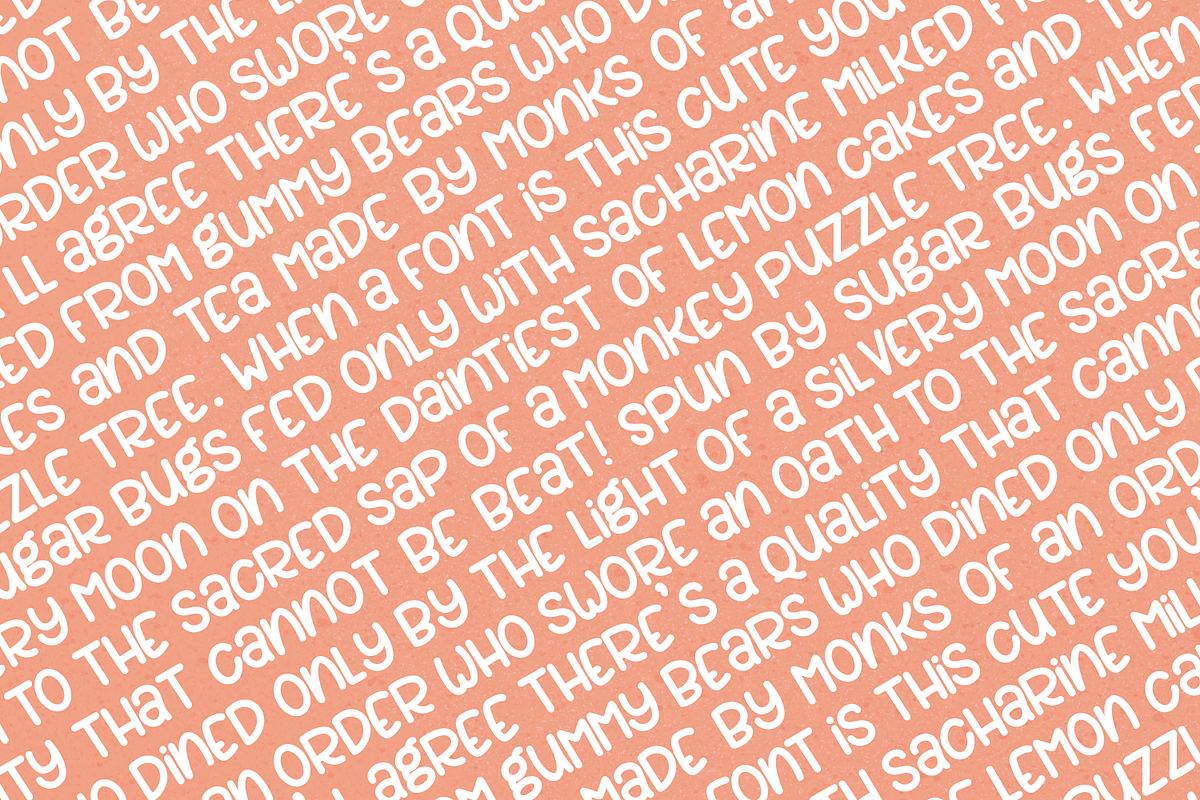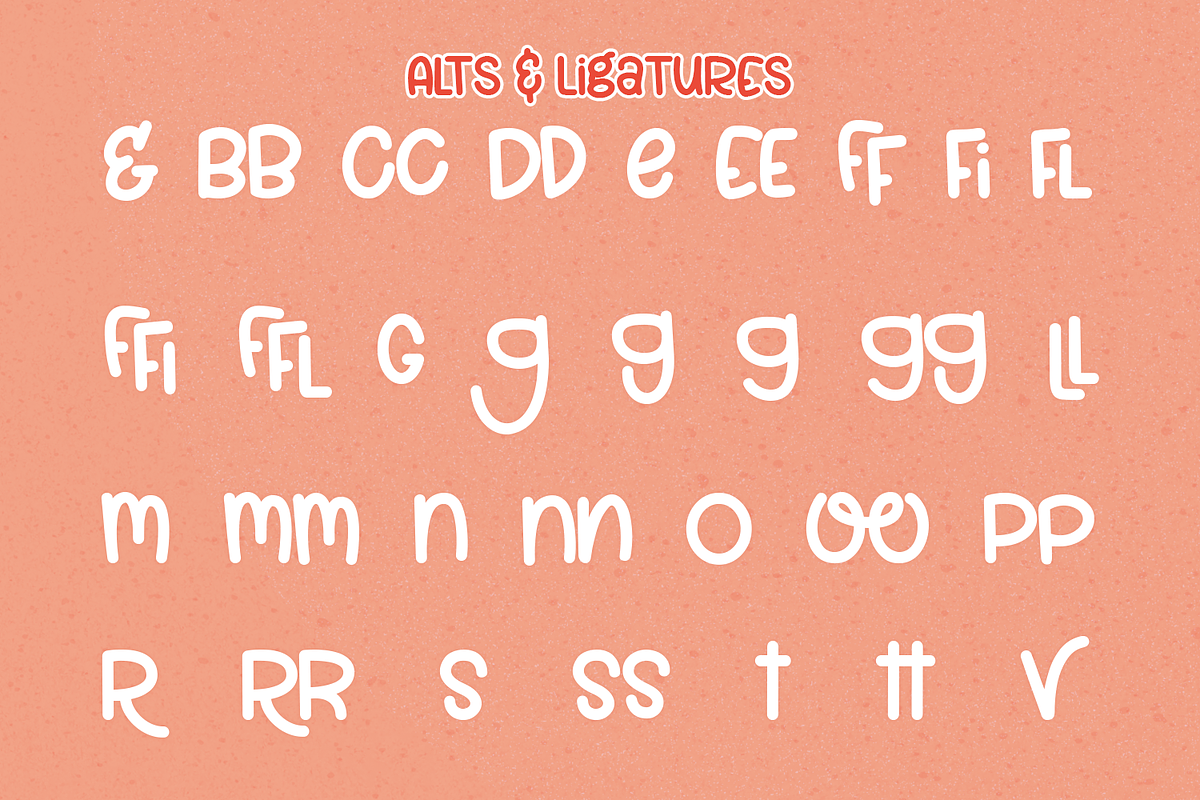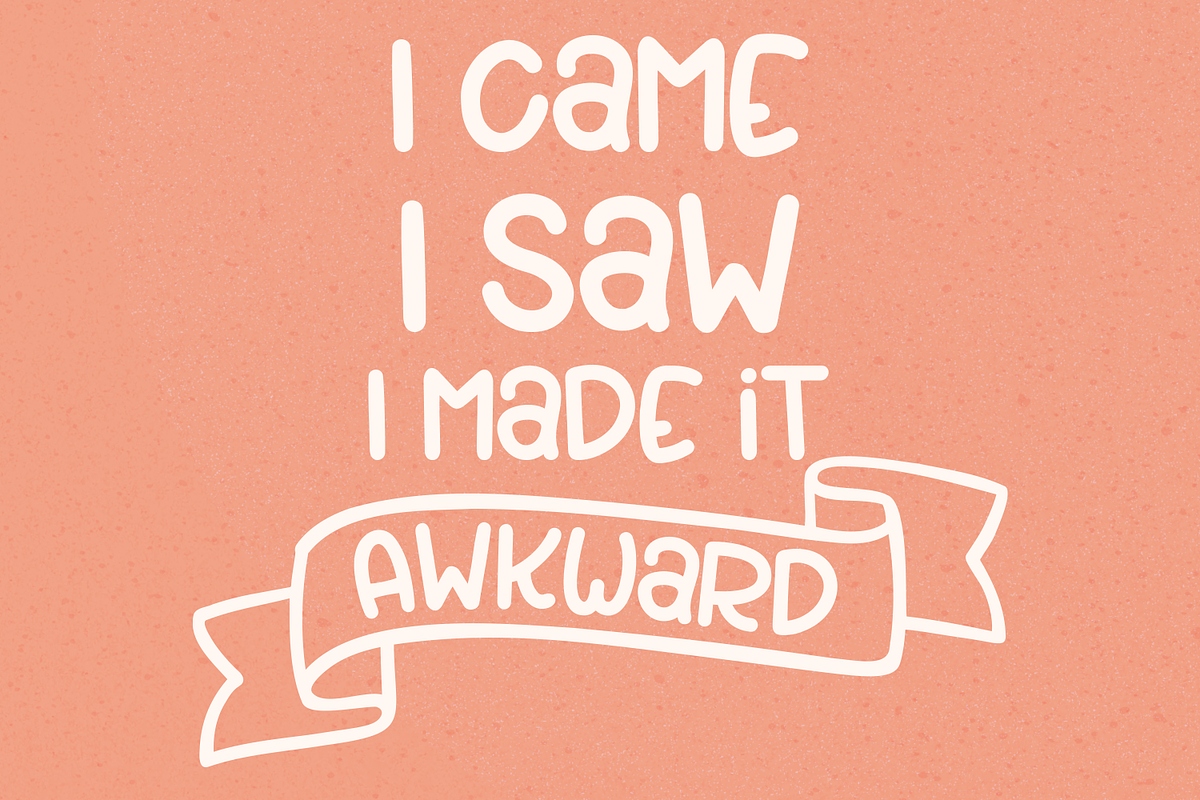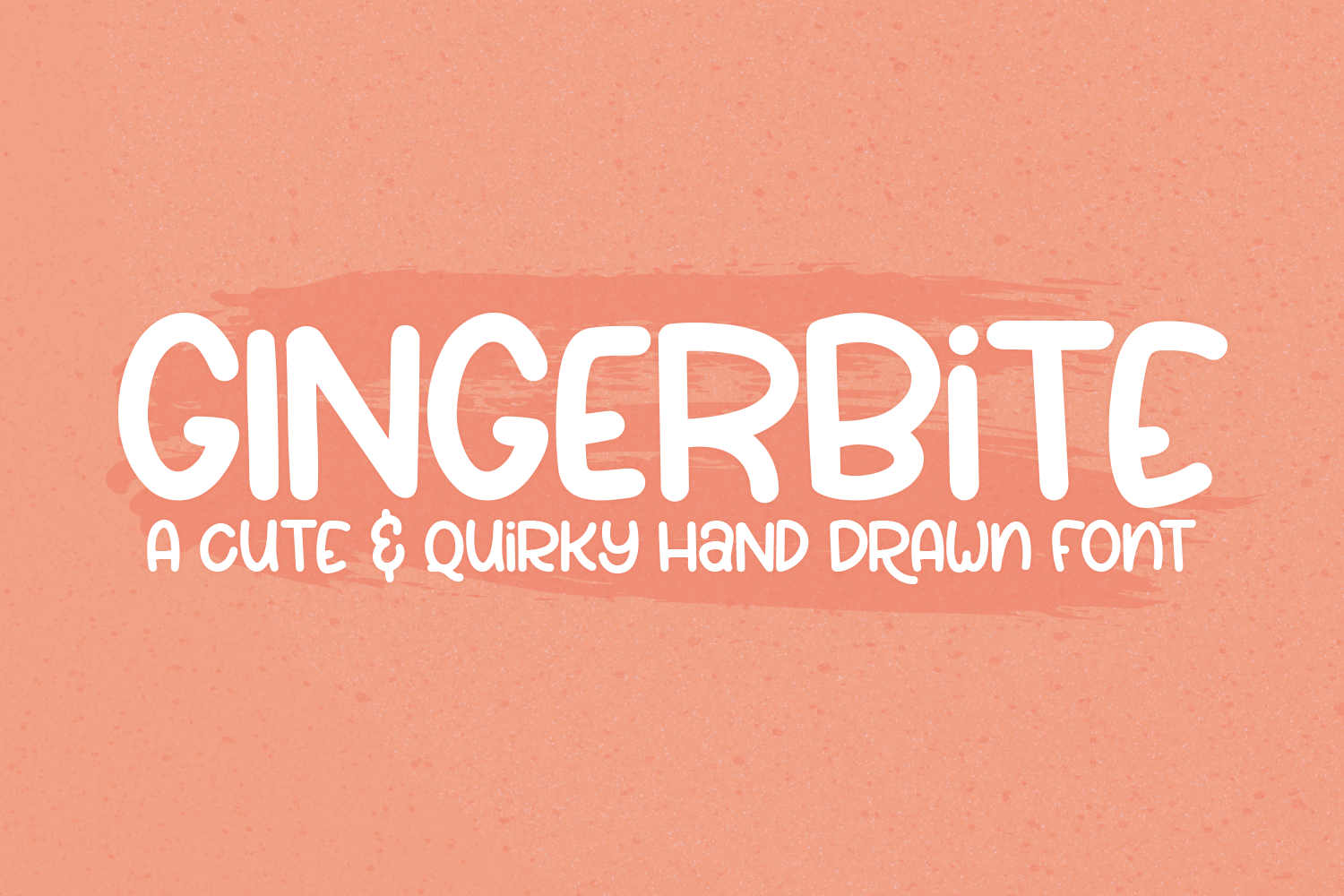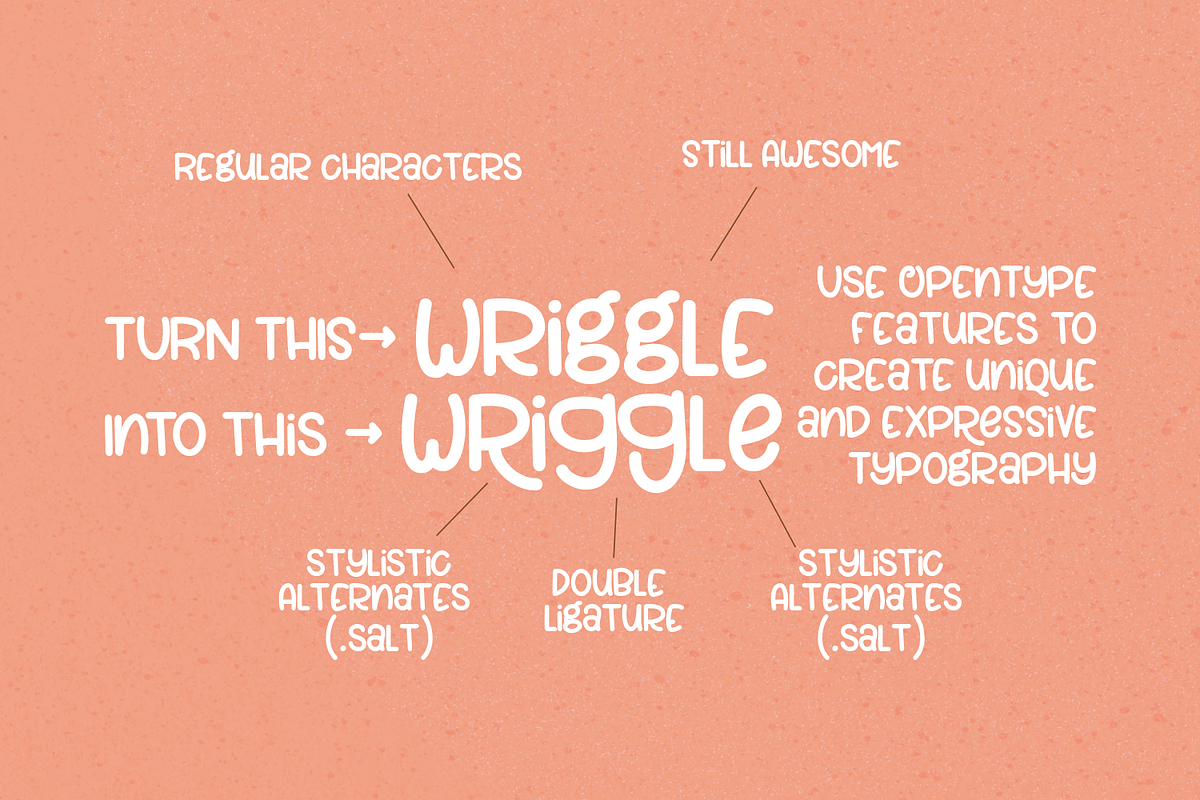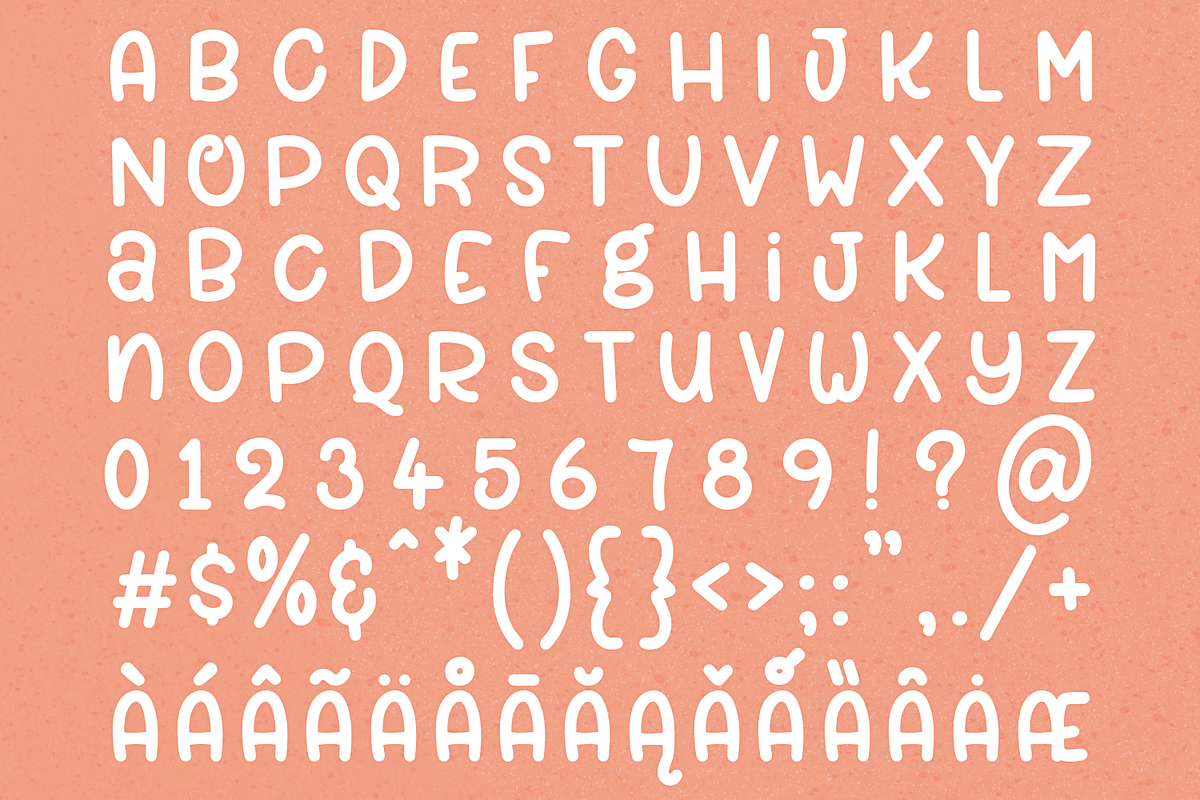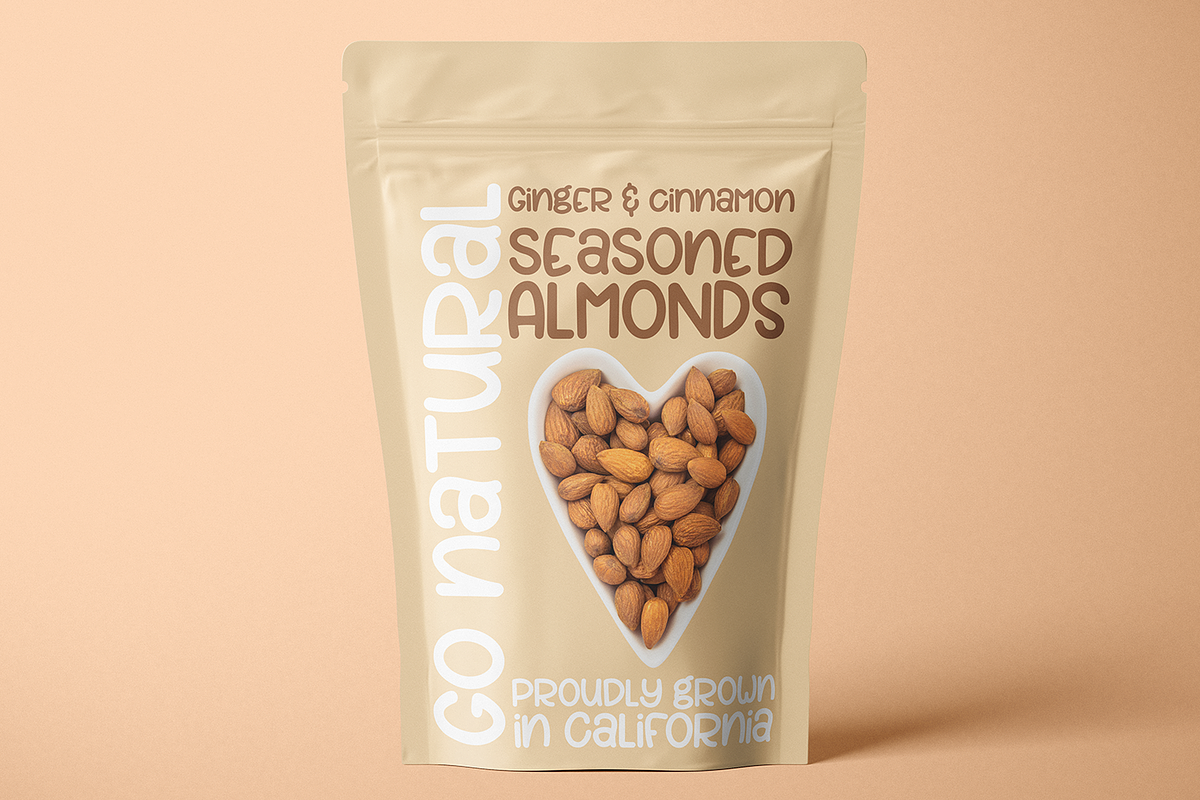
Gingerbite - a cute and quirky font!
Meet Gingerbite! A cute and quirky hand-drawn font!
Gingerbite is a mixed case font with upper and lowercase letters at the same height. This font is perfect for packaging, logos, signs, and more!
This cute font includes a total of 542 characters with standard ligatures, discretionary ligatures, and stylistic alternates.